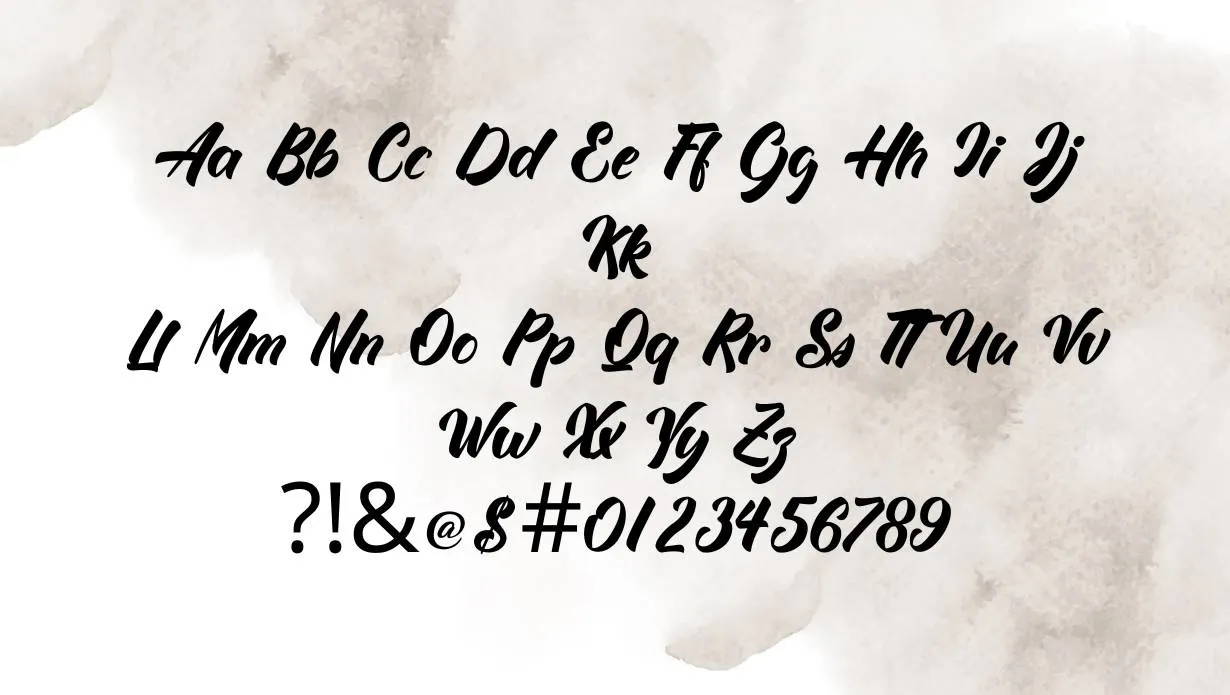
White Mackintosh font is the epitome of timeless elegance, perfect for adding sophistication to your words. Whether it’s formal invitations or refined documents, this font exudes a touch of class.
With its gracefully medium weight and elegantly proportioned width, the White Mackintosh strikes a balanced and polished appearance. It is the font of choice when you want your words to convey a sense of timeless beauty and enduring style.